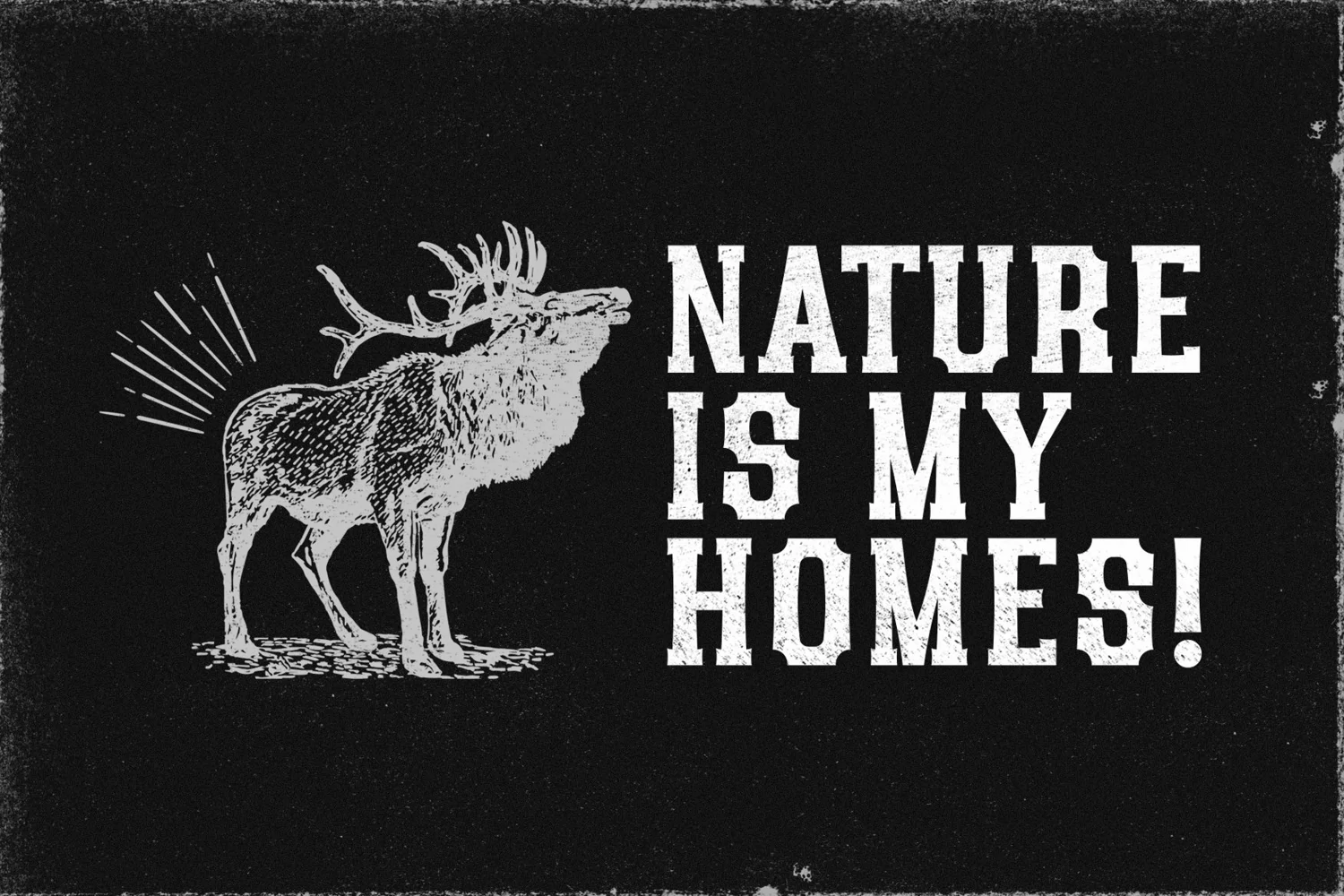
Tonight is a handmade slab serif typeface. Perfect for display, poster, quotes, film, craft needs, book cover, business card, packaging, merchandise, branding, logo, logotype, header, title, and many more.